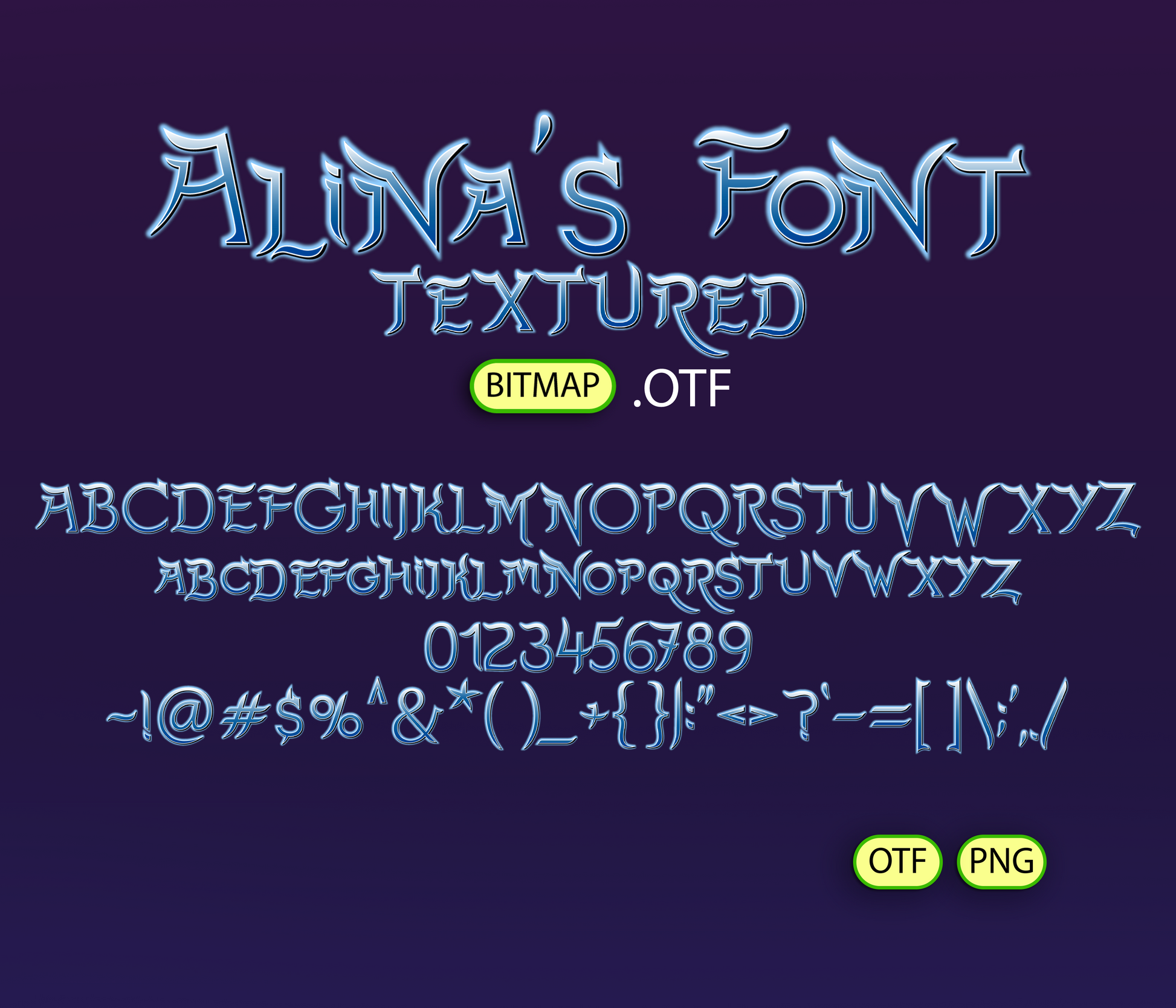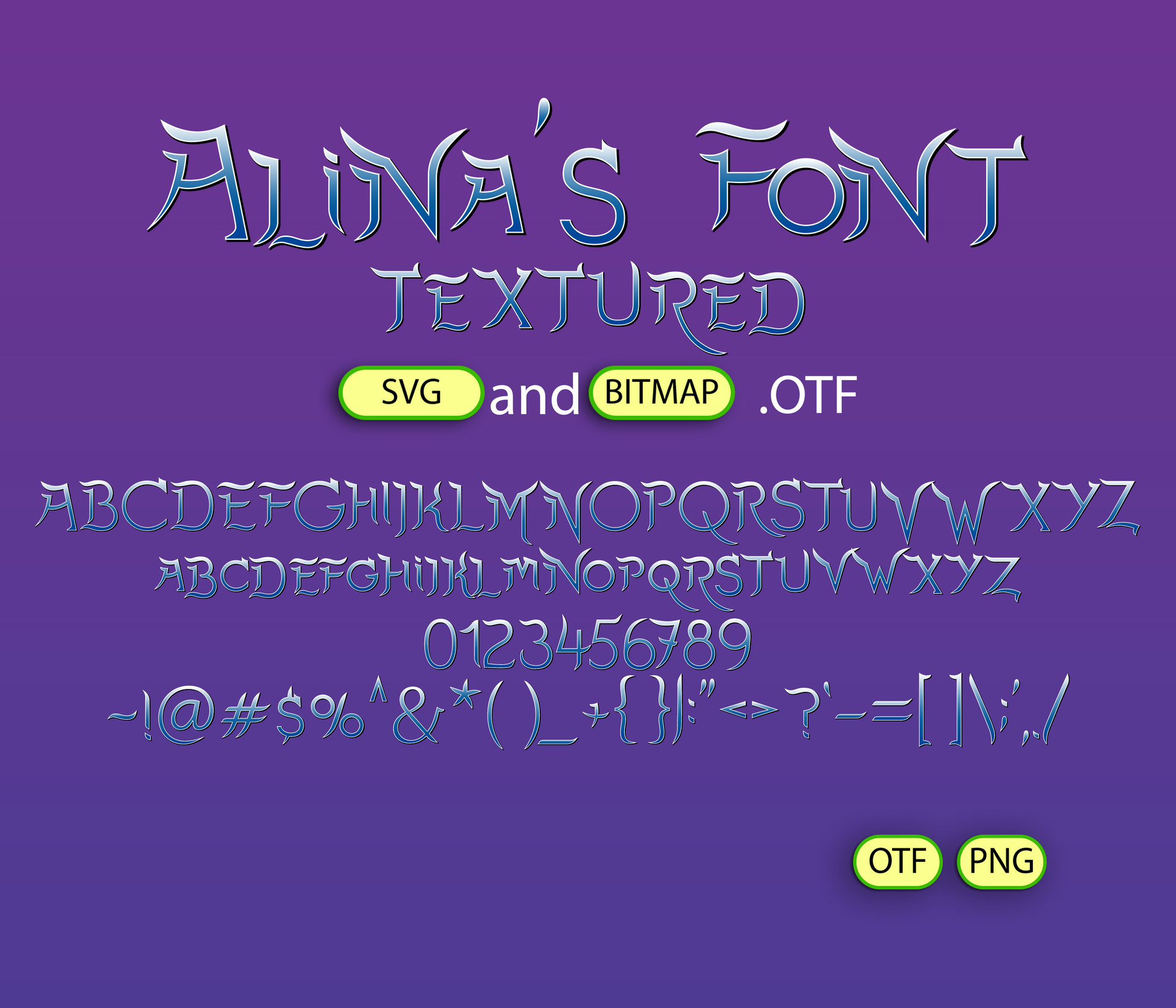
Celestial Protector Textured Font
Immerse yourself in the mystical world of divine guardians with our Celestial Protector font, inspired by the captivating anime series about a minor god and his human guide. This font captures the essence of the spiritual realm colliding with modern-day Japan, perfect for fans, artists, and designers looking to infuse their projects with supernatural flair.
Our Celestial Protector font features elegant, flowing characters with a hint of otherworldly charm, reflecting the blend of modern and spiritual themes. Ideal for:
Our font pays homage to the ethereal world of divine beings and their human companions, empowering your designs with its mystical and engaging spirit. Whether you're crafting fan art, designing themed events, or adding a touch of the supernatural to personal projects, this font communicates the essence of the spiritual and mundane worlds colliding.